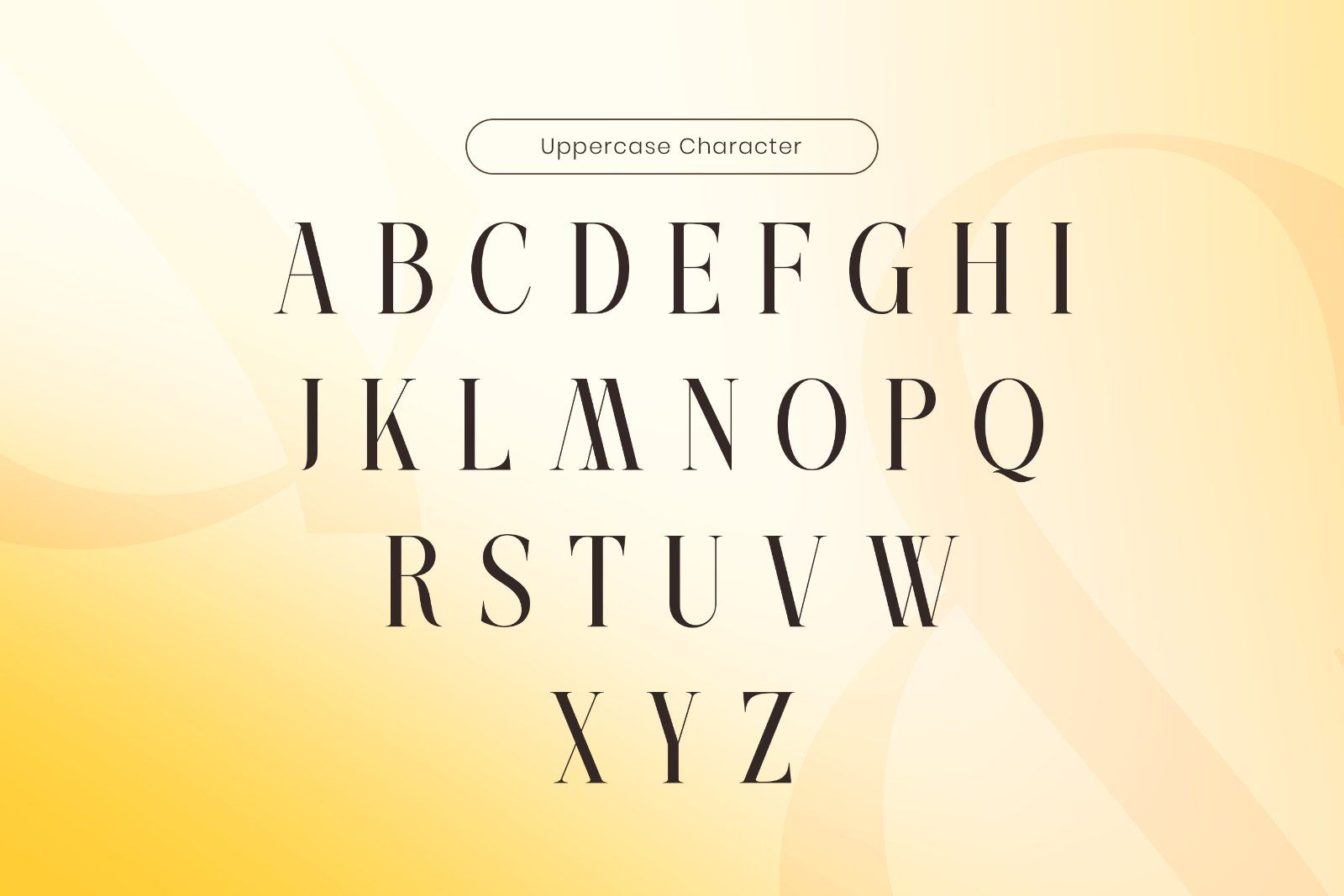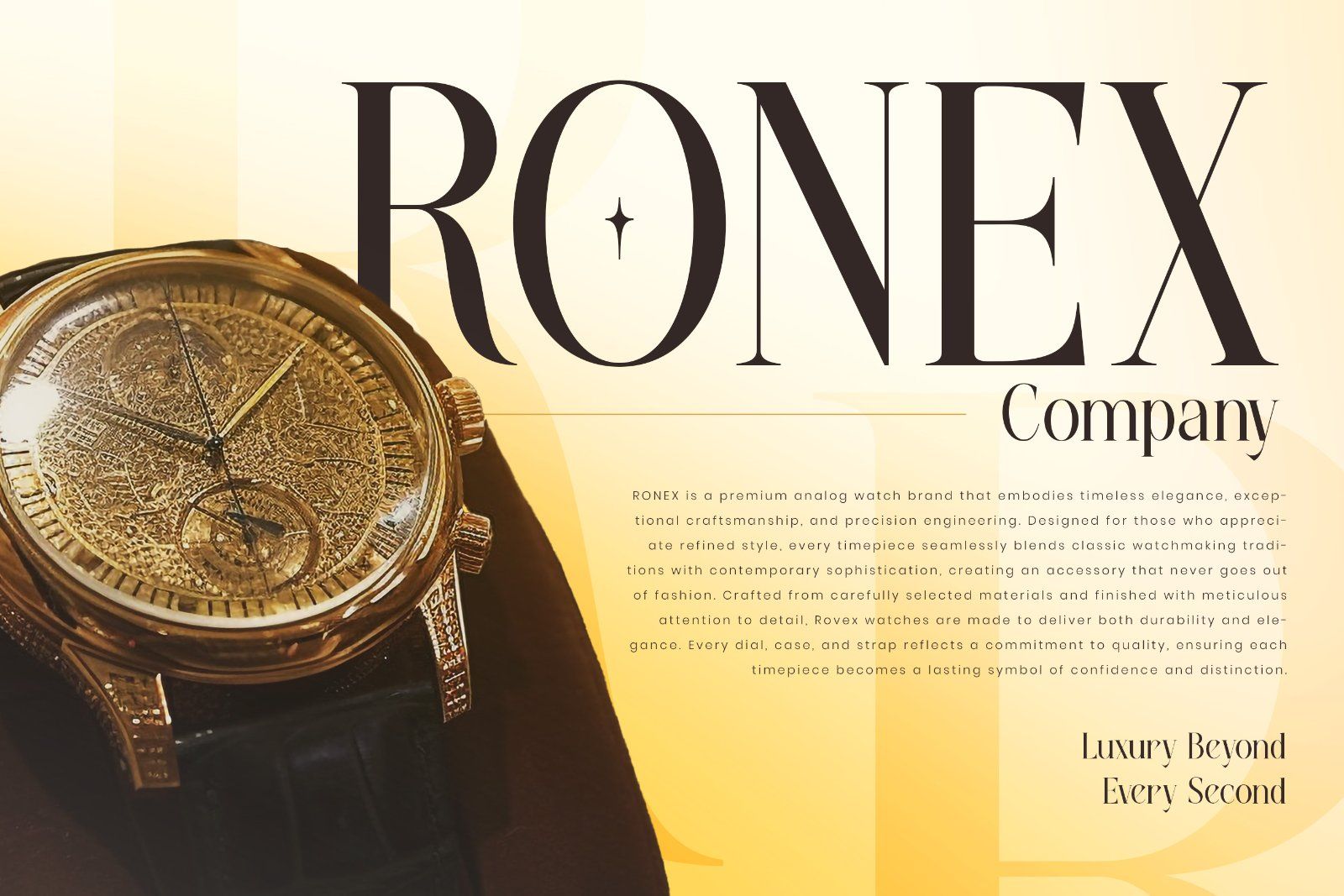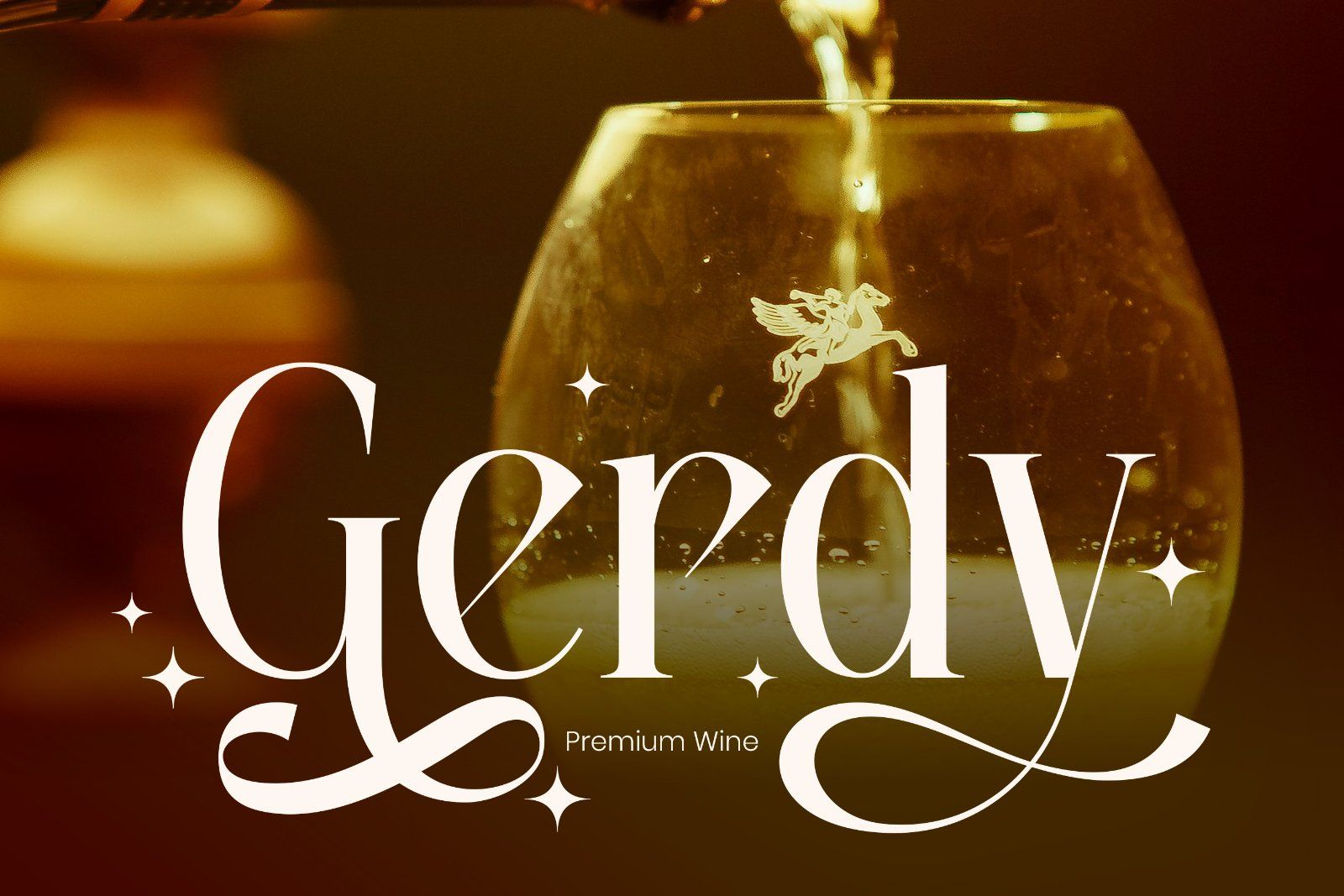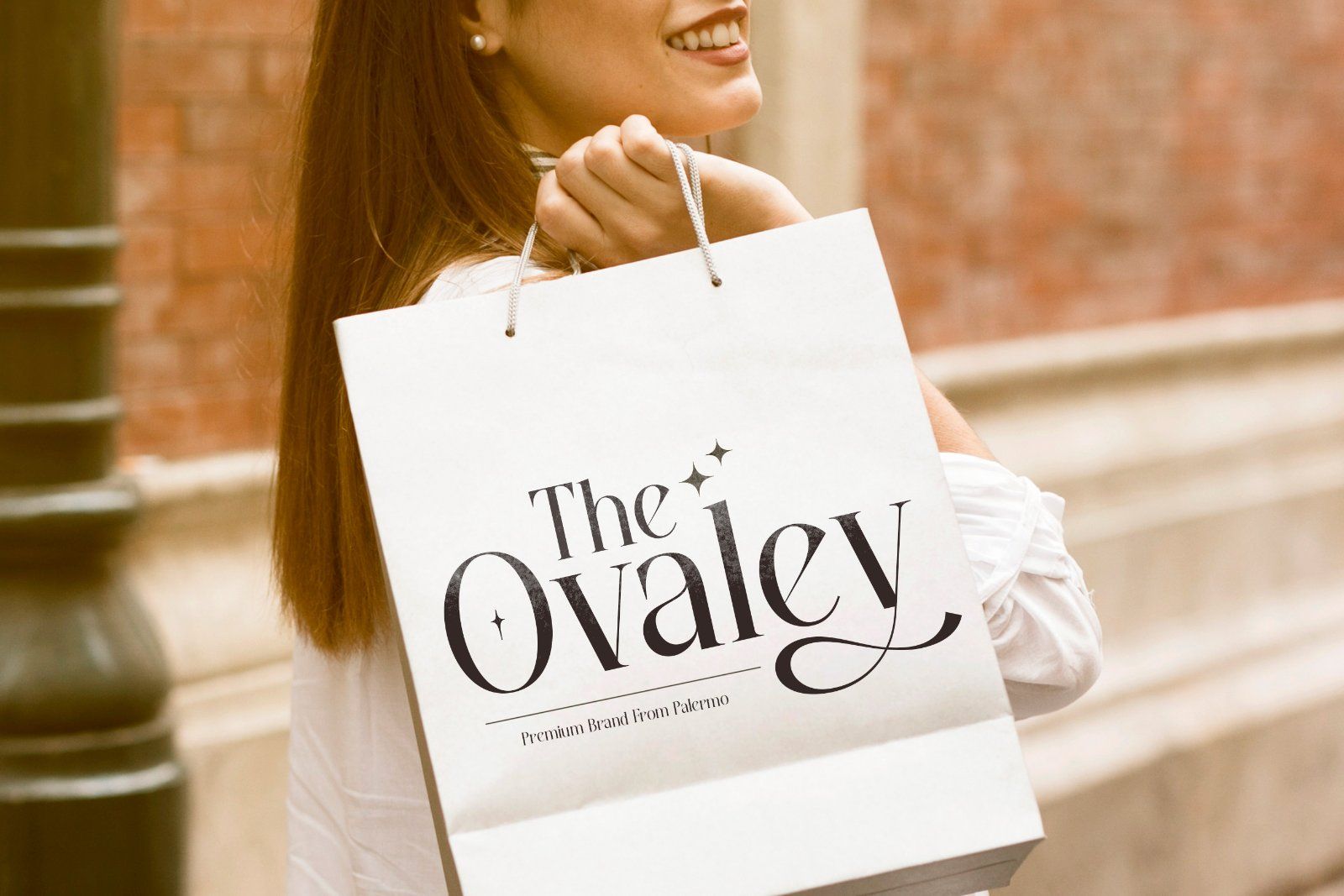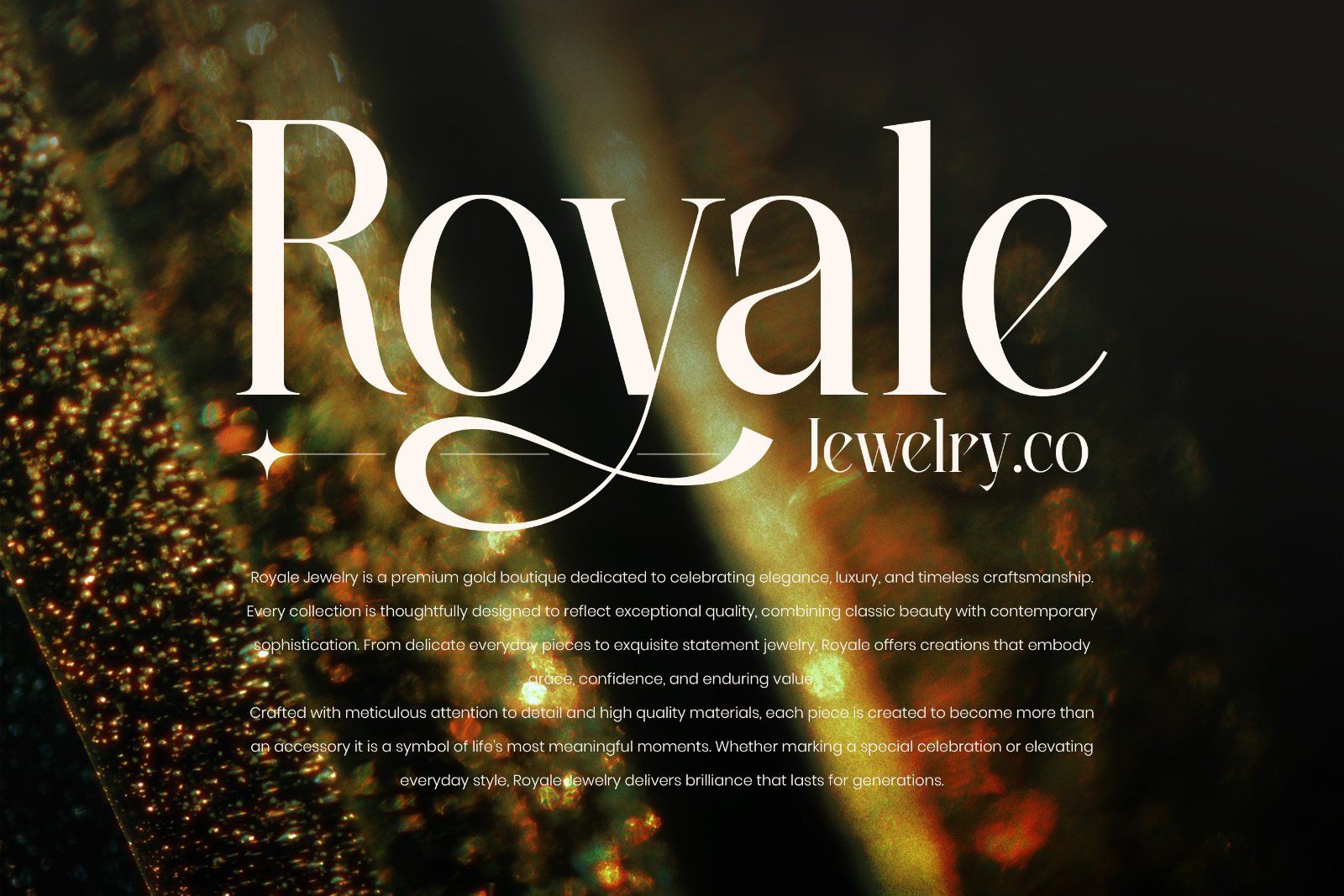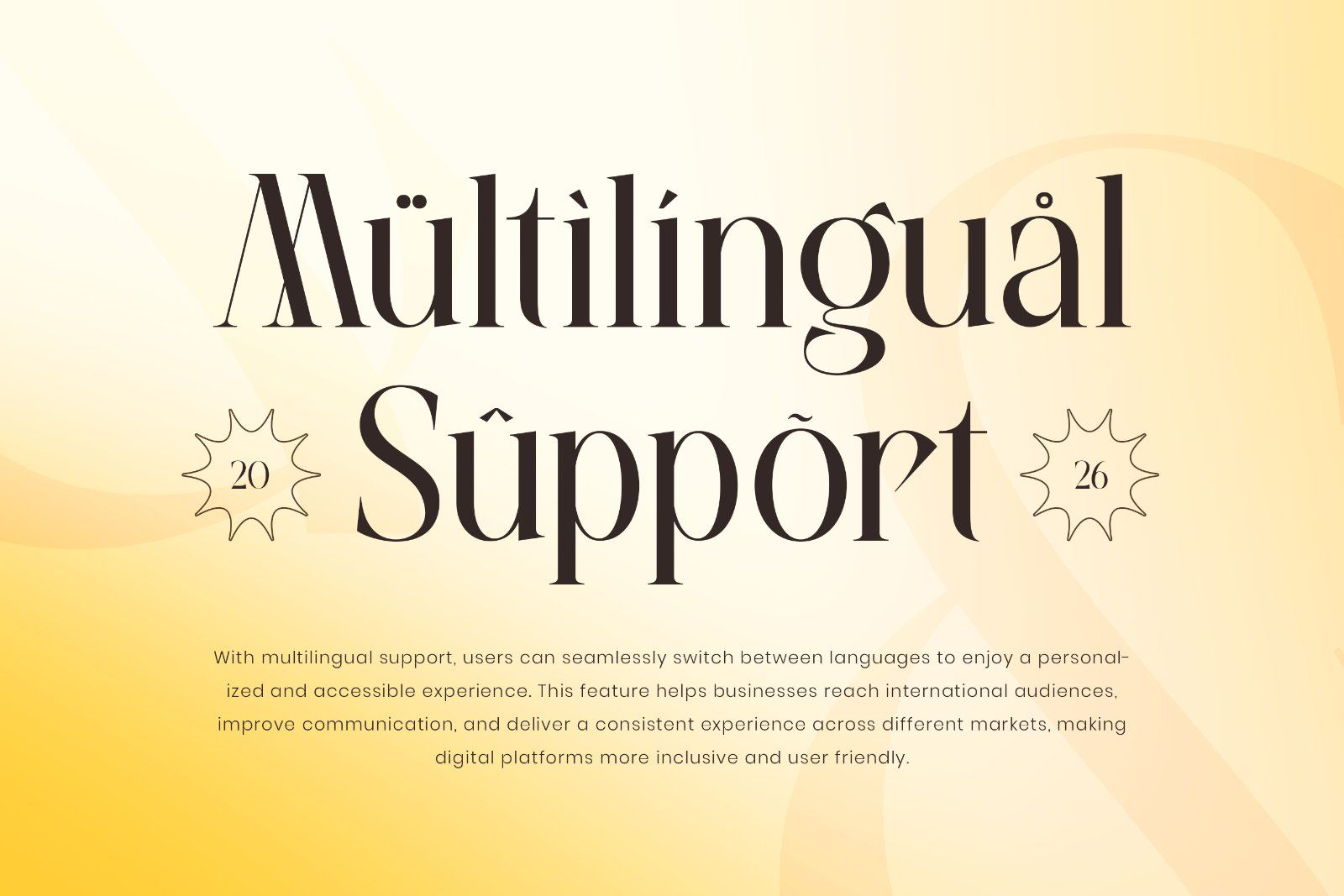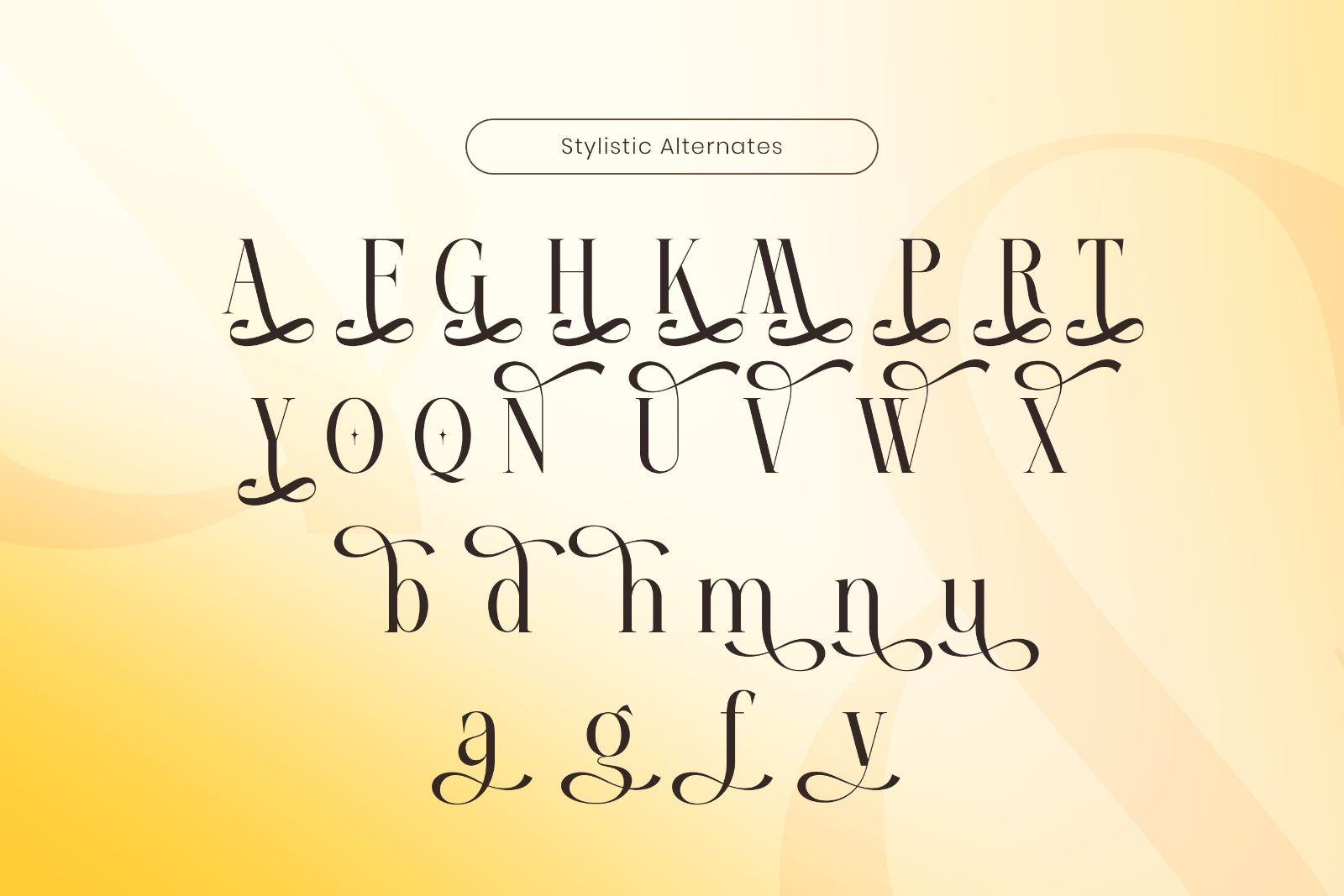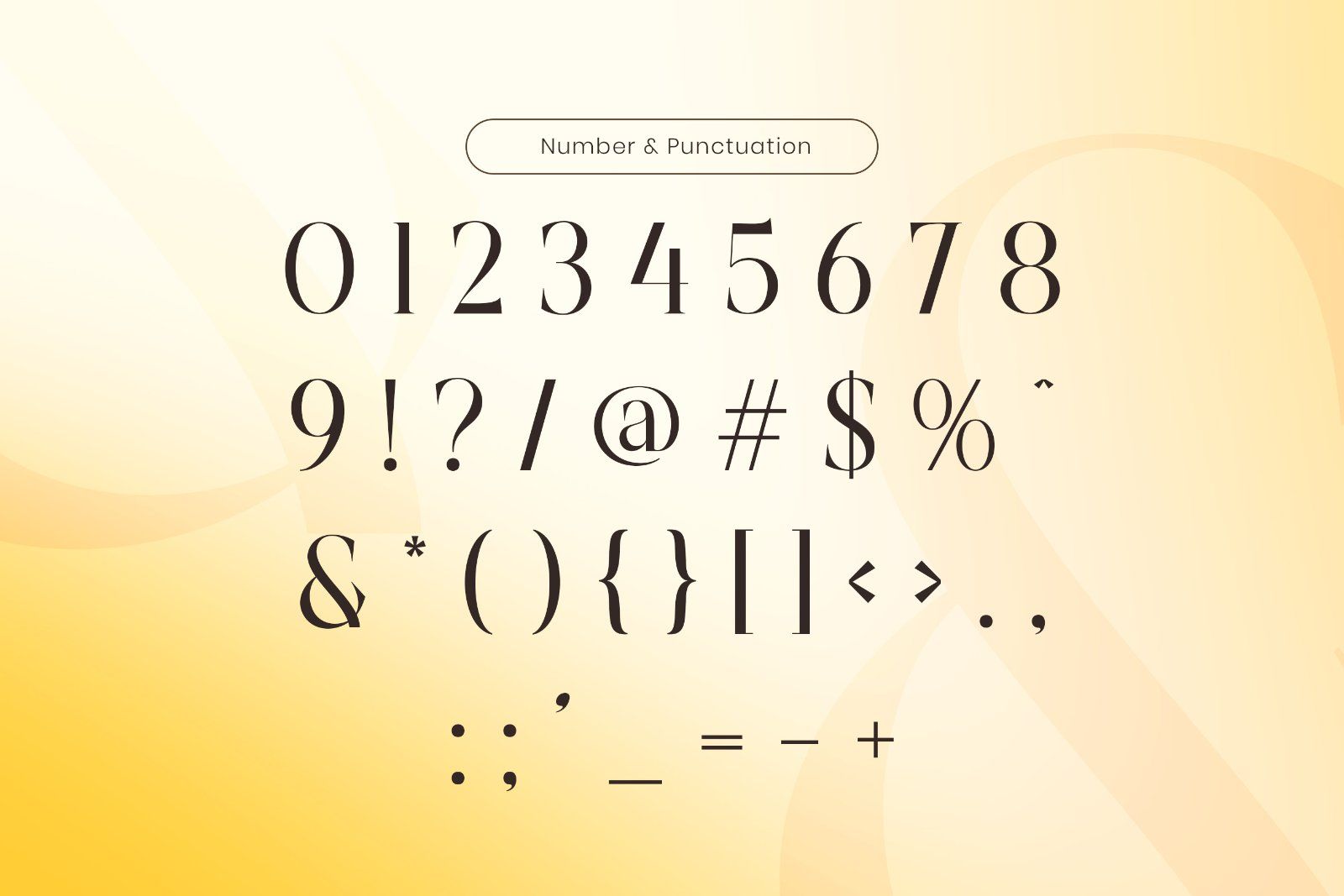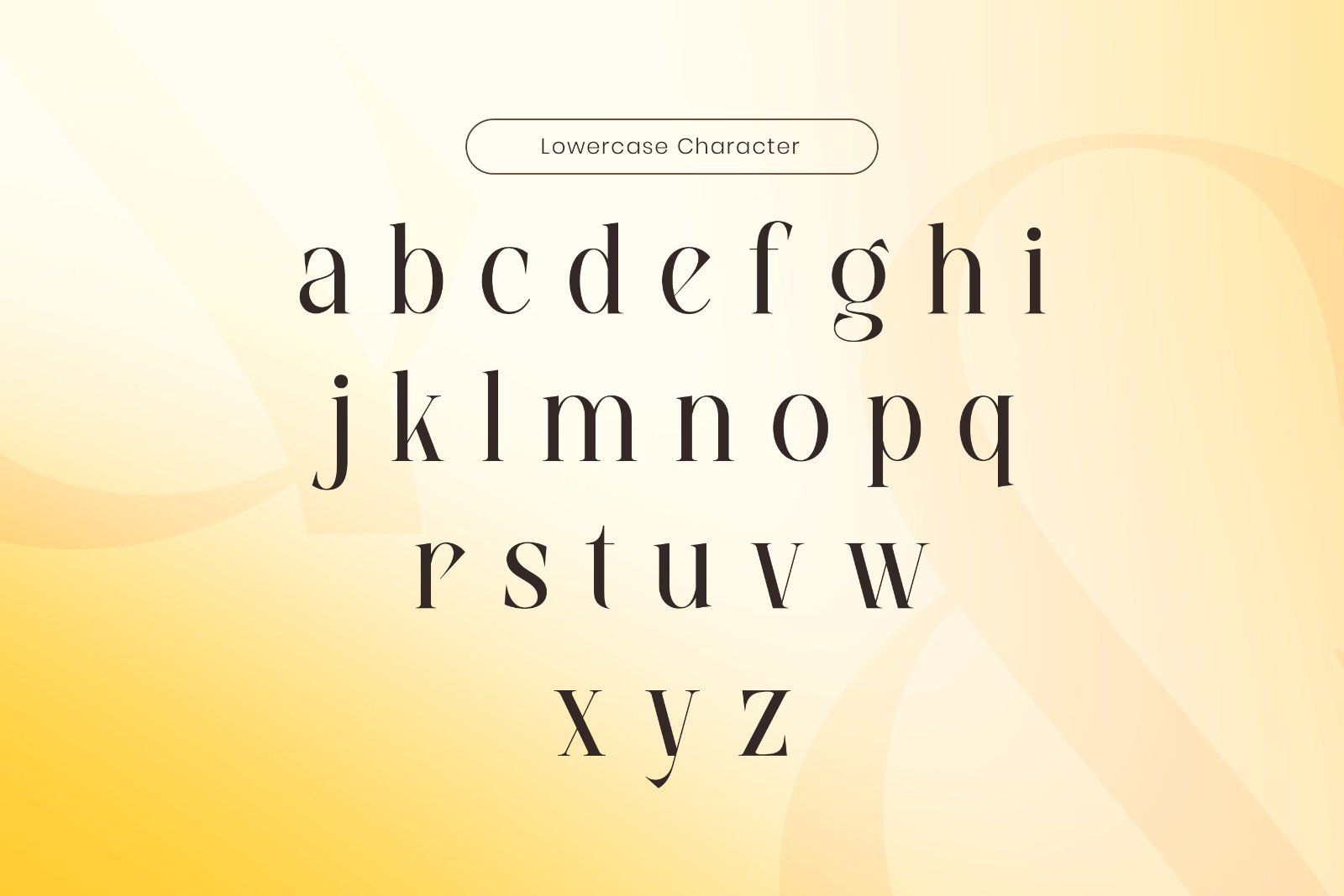
Rimosa is an elegant luxury serif typeface designed to bring sophistication, refinement, and timeless beauty to your creative projects. With its graceful letterforms, refined curves, and high-contrast details, Rimosa creates a premium aesthetic that instantly elevates any design. The font seamlessly combines classic serif elegance with a contemporary luxury feel, making it a perfect choice for brands that value style, exclusivity, and professionalism.
• Uppercase alphabet A-Z
• Lowercase alphabet a-z
• Numbers 0-9
• Some punctuation
• Some Alternates and Ligatures